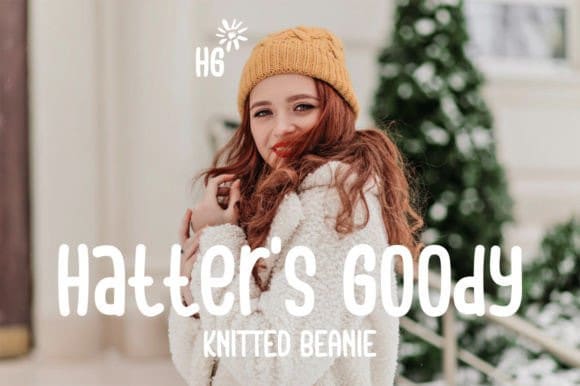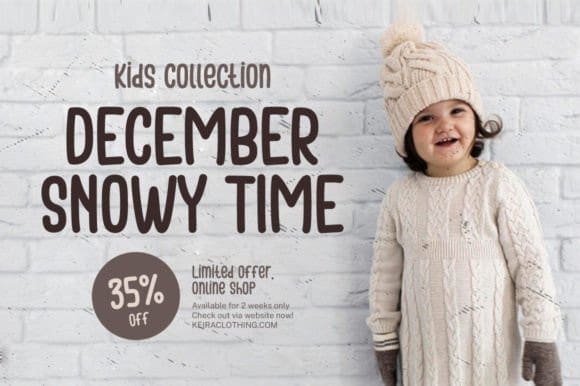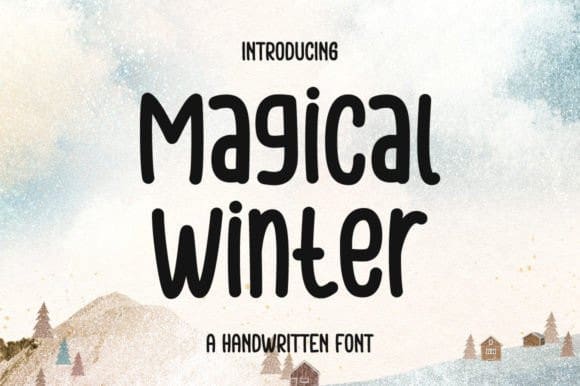
Magical Winter Font
Magical Winter Font is a delicate and simple-lettered display font, perfect for all the chalkboard quotes and teaching materials you wish to create! Its authentic look will add a personal and realistic feel to your designs.